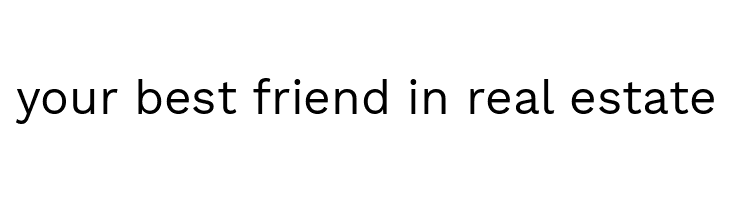
• Encode Sans Narrow
A modern, narrow sans-serif font with a clean and professional look.
• Encode Sans Narrow ExtraLight
A modern, narrow sans-serif font with an extra light weight and sleek design.
• Encode Sans Narrow Thin
A modern, narrow, and thin sans-serif font with a minimalist design.
• Encode Sans Narrow Bold
A modern, narrow, and bold sans-serif typeface with tight spacing.
• Encode Sans Narrow SemiBold
A modern, narrow sans-serif font with semi-bold weight.
• Encode Sans Narrow Medium
A modern, narrow sans-serif font with clean lines and excellent legibility.
• Encode Sans Condensed
A modern, clean, and condensed sans-serif typeface with a focus on readability.
• Encode Sans Condensed Medium
A modern, condensed sans-serif font with medium weight and excellent legibility.
• Encode Sans Condensed Bold
A bold, condensed sans-serif font with a modern and clean design.
• Encode Sans Condensed SemiBold
A modern, condensed sans-serif font with a clean and professional look.